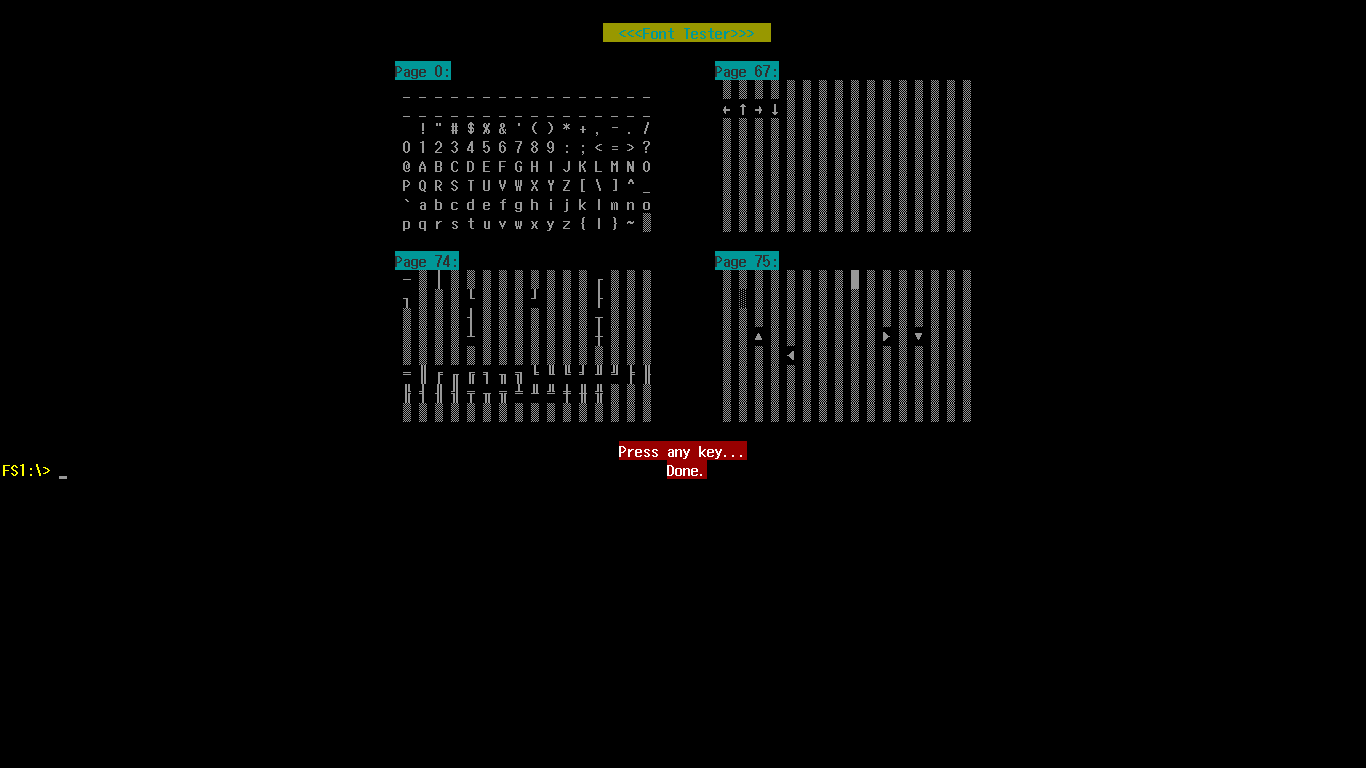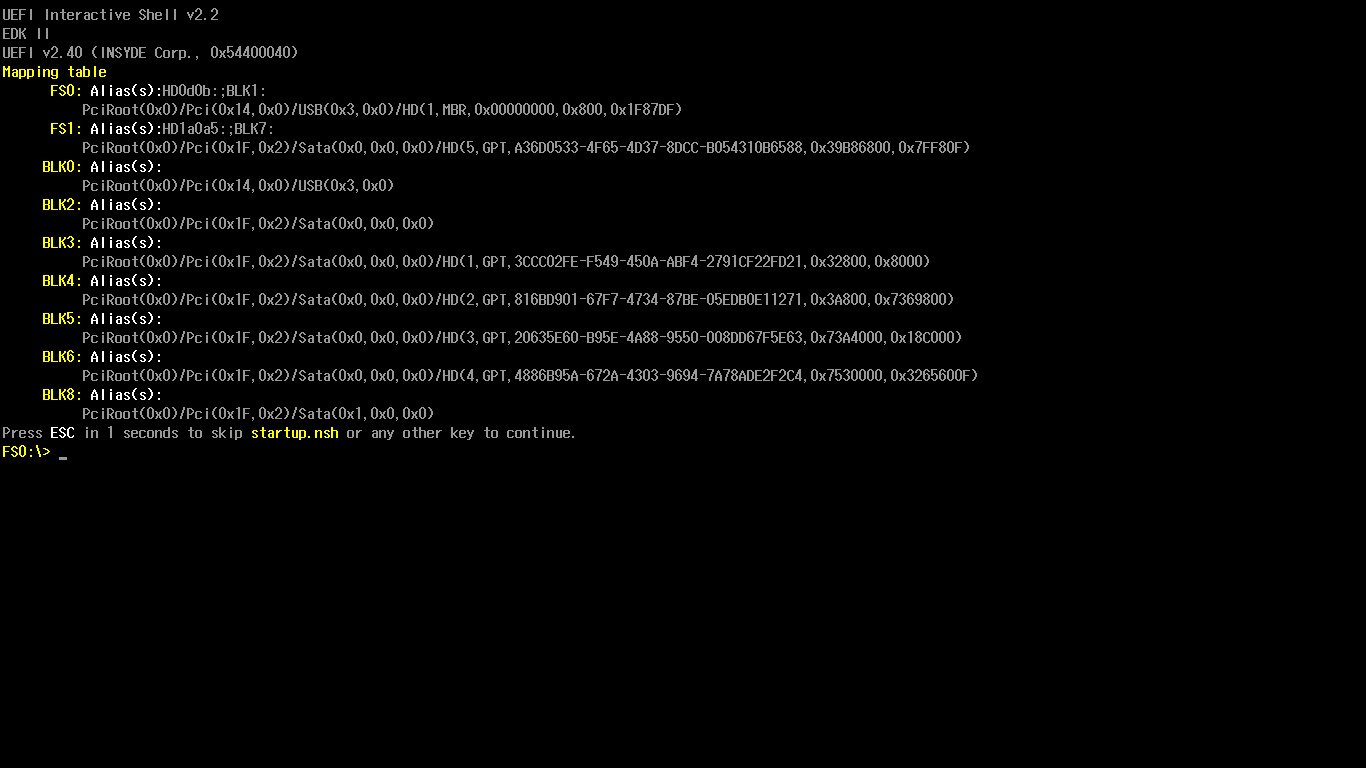
Screenshot taken from my Acer TravelMate P246 laptop, in design resolution 1366×768:
Sample taken from my Acer TravelMate P246 laptop. It contains information about the partition layout on my hard disk:
This font looks like Determination.
PxEFI Acer InsydeH2O 8x19by Eve Trudy (Eve Trudy)